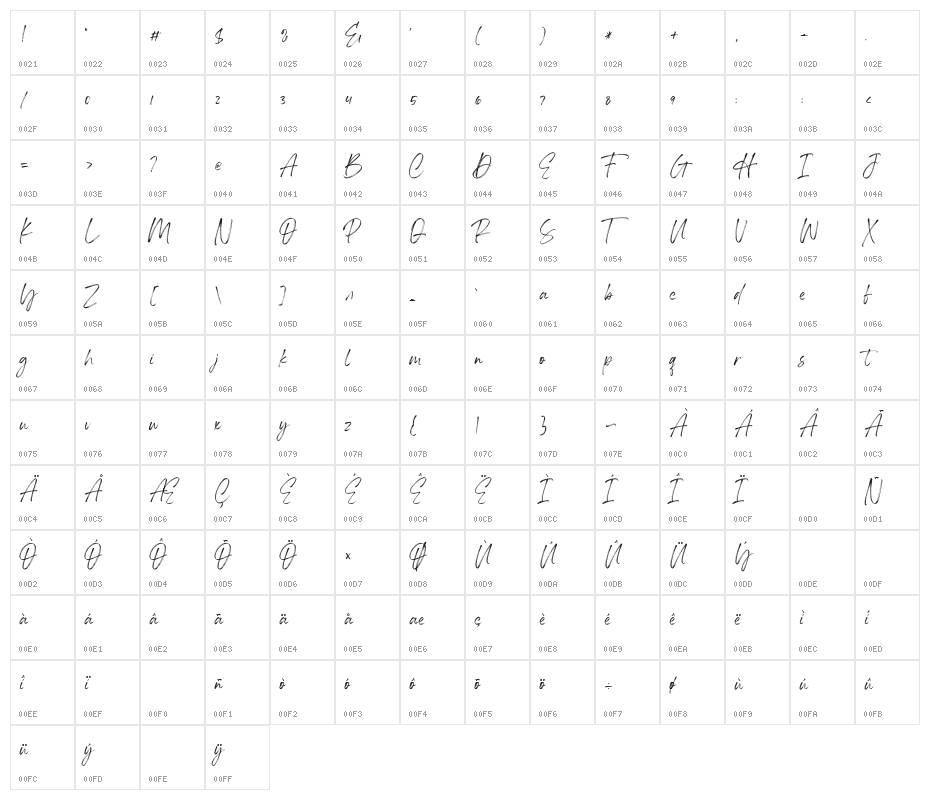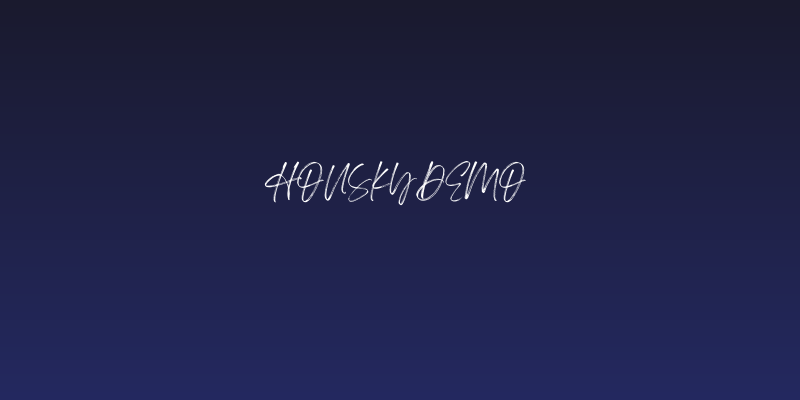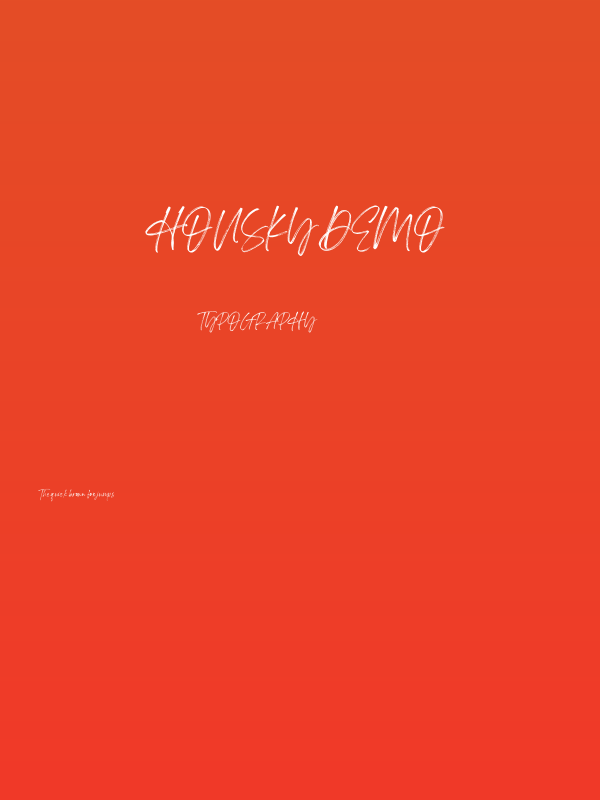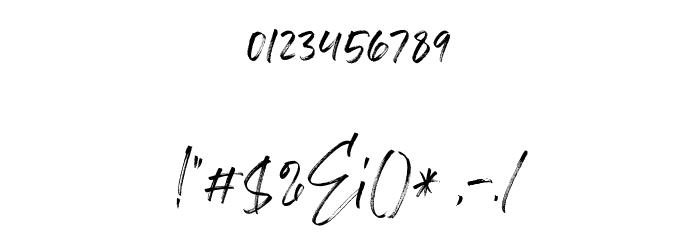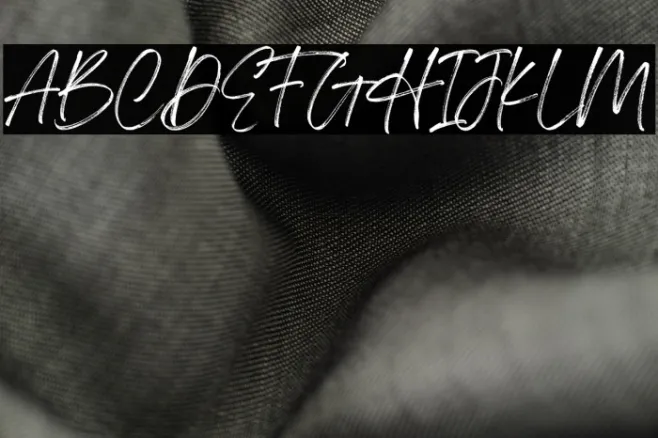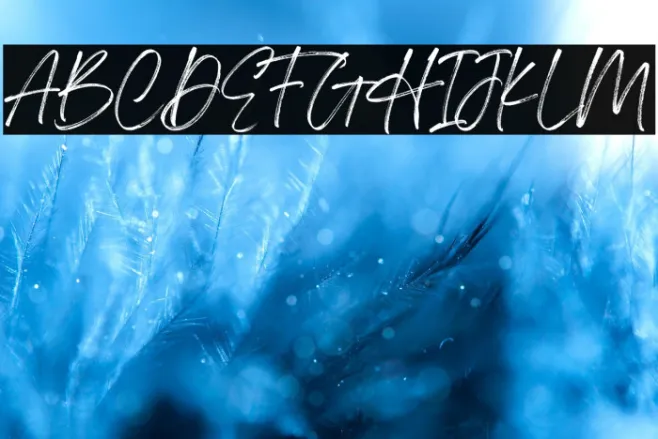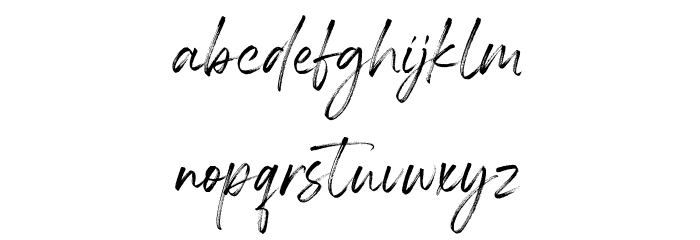
Housky Demo Font
Housky Demo Description
This font features a dynamic and expressive handwritten style, characterized by its fluid and organic strokes. The letters are slightly slanted, giving a sense of movement and energy. The uppercase letters are bold and prominent, while the lowercase letters maintain a consistent flow with a more delicate touch. The numbers and special characters are crafted with the same attention to detail, ensuring a cohesive look across all elements. The brush-like texture adds a personal and artistic feel, making it ideal for creative projects that require a touch of elegance and individuality.
| Proposed Projects | Ideal for wedding invitations, greeting cards, branding projects, and artistic posters. |